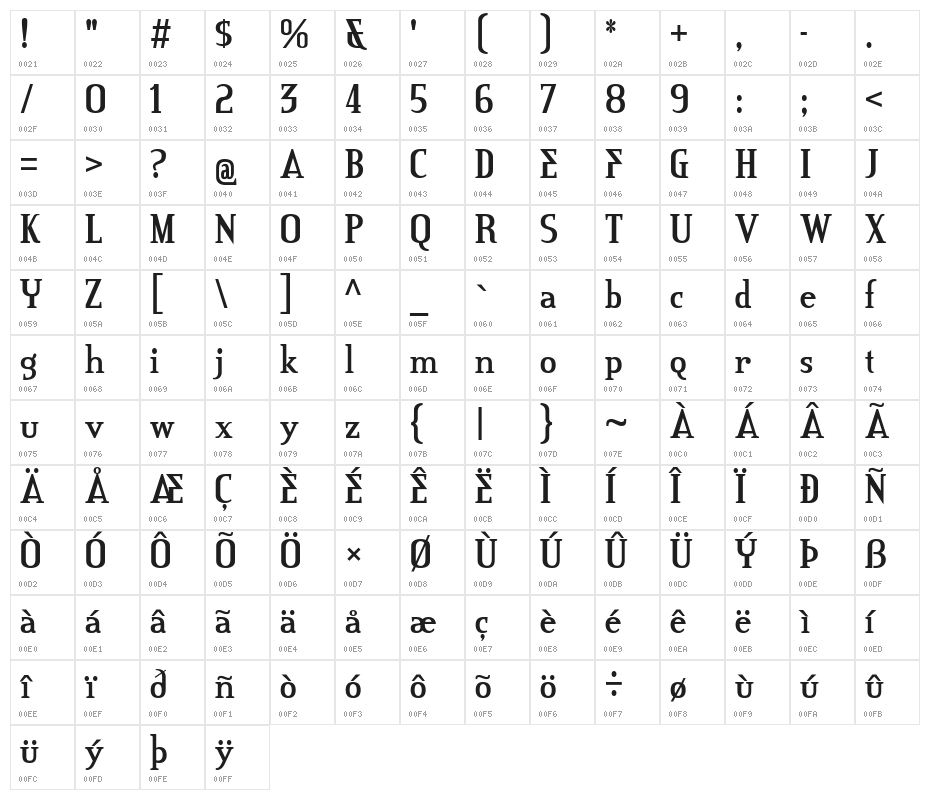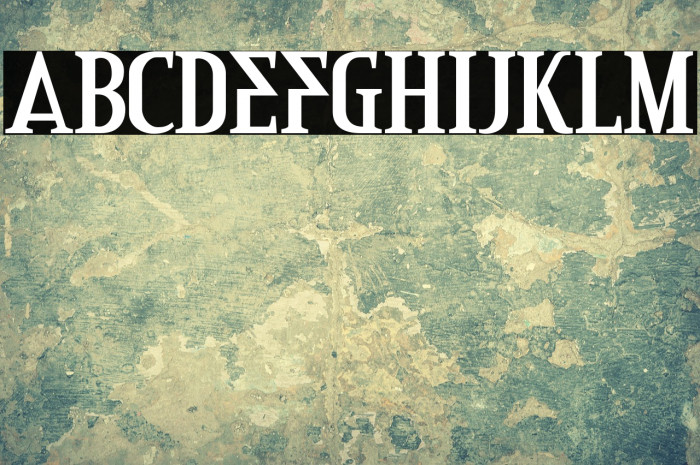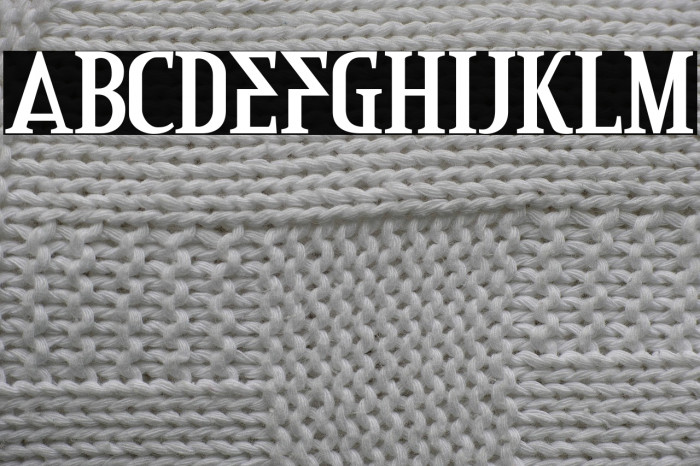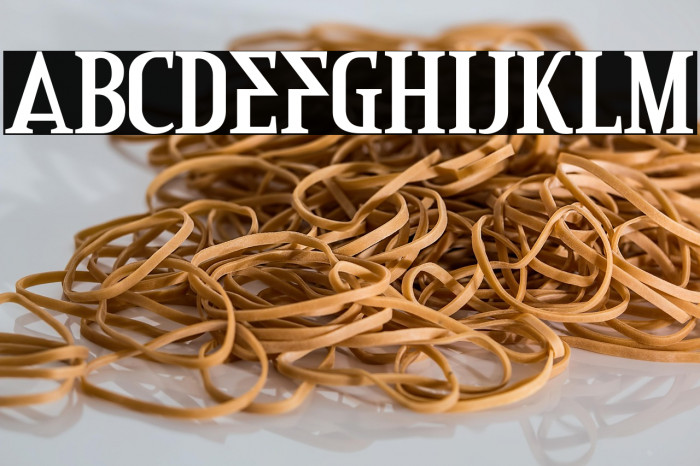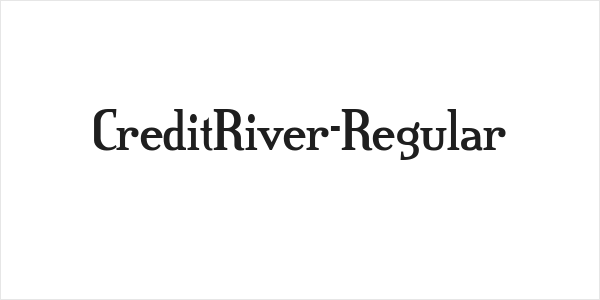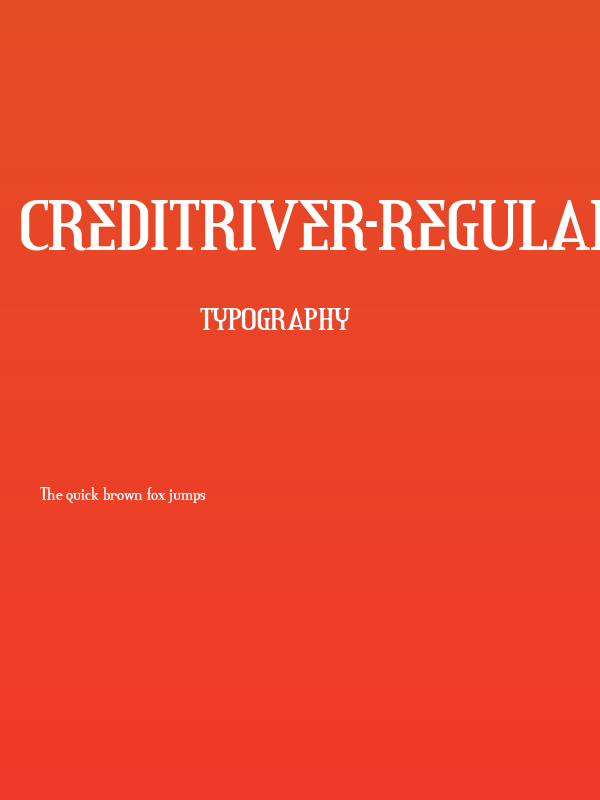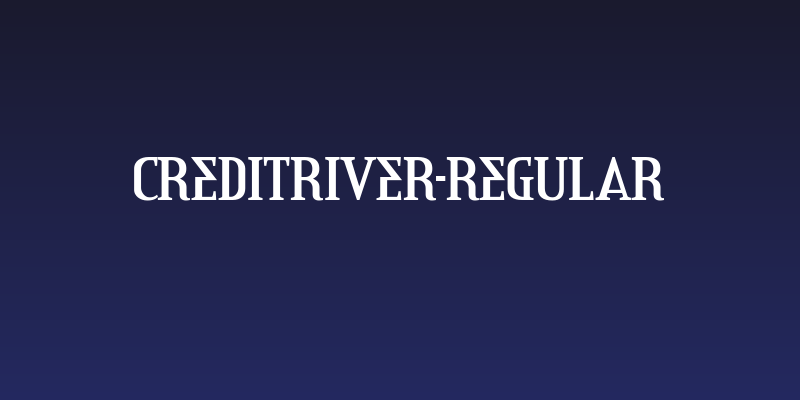
CreditRiver-Regular Font
CreditRiver-Regular Description
This font features a bold and distinctive serif style with a modern twist. The uppercase letters are characterized by strong, angular serifs and a slightly condensed form, giving them a commanding presence. The lowercase letters maintain a consistent style with rounded edges and a balanced weight, ensuring readability. Numbers are clear and bold, matching the overall aesthetic of the font. Special characters are designed with the same attention to detail, providing a cohesive look across all glyphs. The font's unique style makes it suitable for a variety of design applications, offering both elegance and impact.
| Use Case | Headlines, Logos, Editorial design |
| Proposed Projects | Ideal for branding, editorial design, headlines, and posters where a strong, modern serif is needed. |